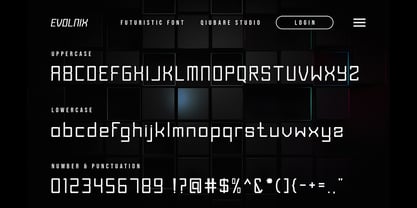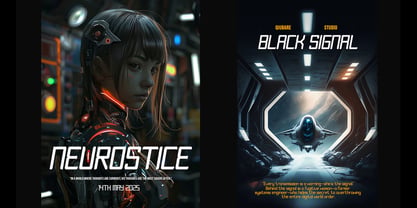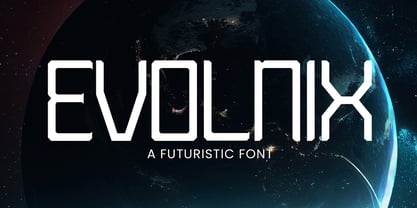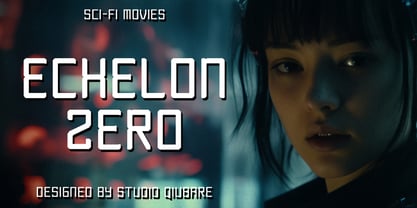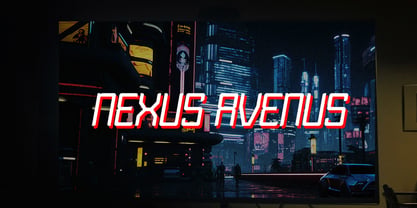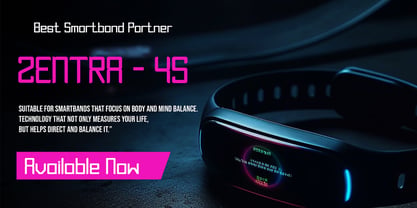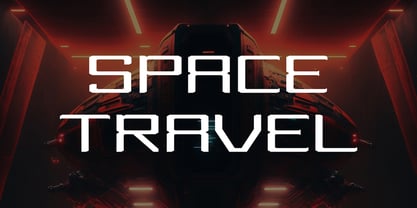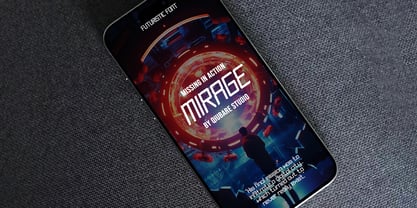
Evolnix
by Qiubare Studio
The Evolnix Font Family was designed by Michael Everson and published by Qiubare Studio. Evolnix contains 1 styles. More about this family
EVOLNIX is a cutting-edge display font inspired by sci-fi technology, cyberpunk aesthetics, and contemporary digital interfaces. With its sharp geometric structures and sleek angular cuts, this typeface creates a striking futuristic atmosphere, making it ideal for creative projects that require a high-tech visual identity. Its unique modern construction and bold character design make EVOLNIX perfect for movie titles, gaming posters, technology branding, esports graphics, sci-fi book covers, YouTube thumbnails, and futuristic product packaging. The font seamlessly combines clean readability with an aggressive, cyber-inspired style, making it suitable for both large headlines and impactful visual compositions. EVOLNIX is designed to infuse your typography projects with a cinematic sci-fi energy. **Perfect for:** - Sci-fi movie titles - Cyberpunk posters - Gaming branding - Technology products - Digital interfaces - Futuristic logos - Space-themed projects - YouTube thumbnails - Social media graphics - Modern display typography **Features:** - Uppercase & Lowercase - Numbers & Punctuation - Multilingual Support - PUA Encoded - Futuristic Sci-Fi Style